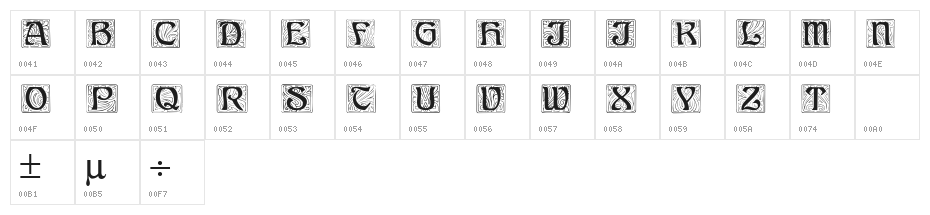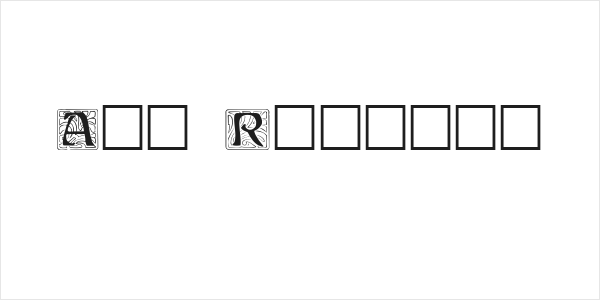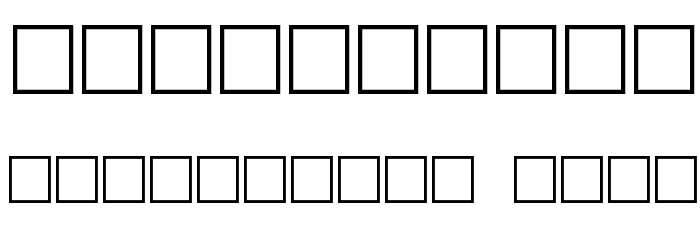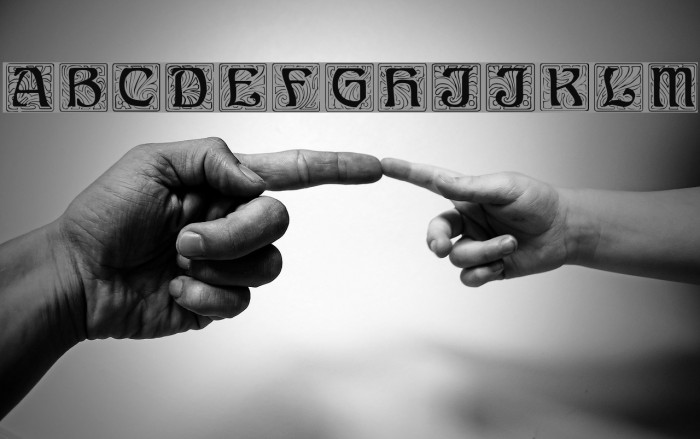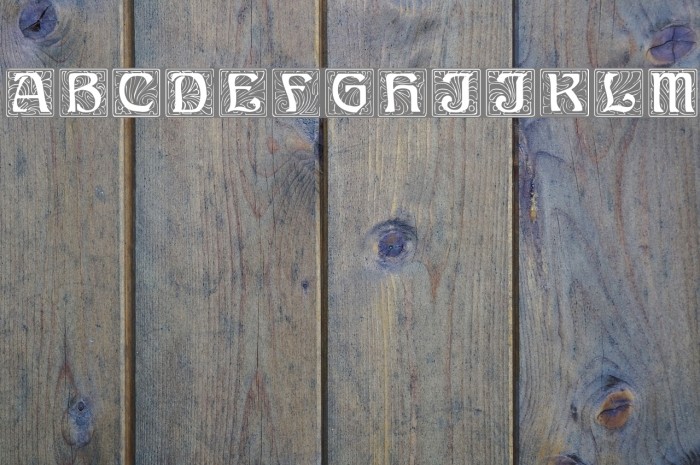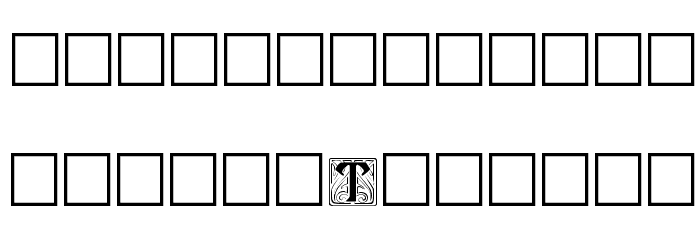
Ann Regular Font
Ann Regular Description
This font features an ornate and decorative style, characterized by intricate swirling patterns within each letter. The uppercase letters are enclosed in square frames, adding a structured and formal appearance. The design is highly detailed, with each character showcasing unique embellishments that create a sense of elegance and sophistication. The font's artistic nature makes it suitable for projects that require a touch of luxury and creativity. Its distinct style is reminiscent of vintage or classical art, making it ideal for use in decorative contexts.